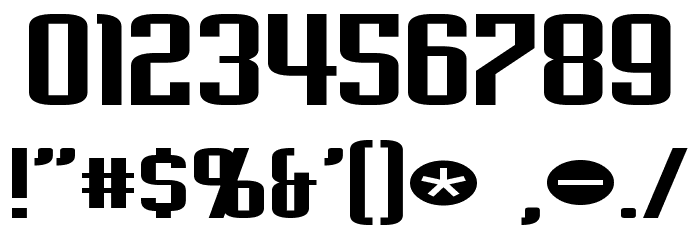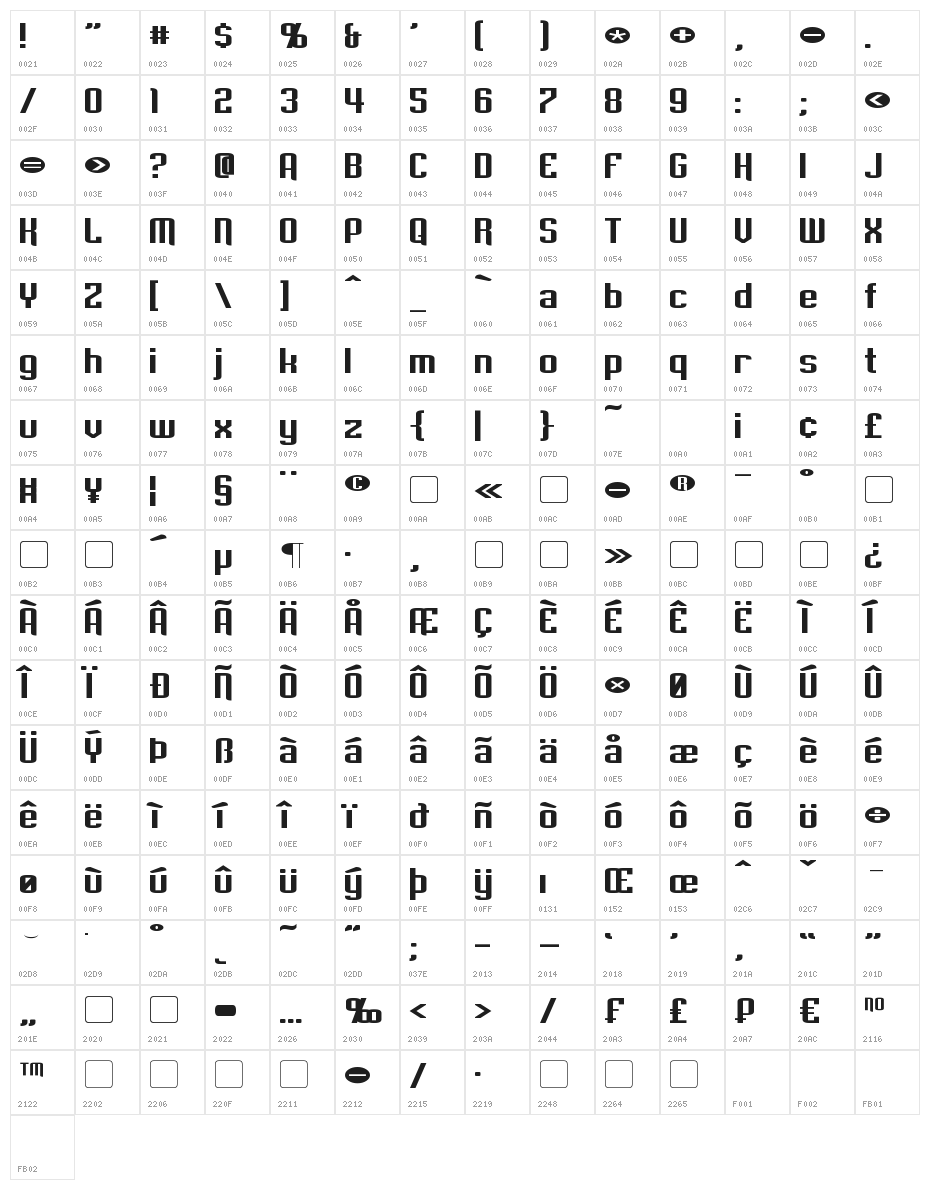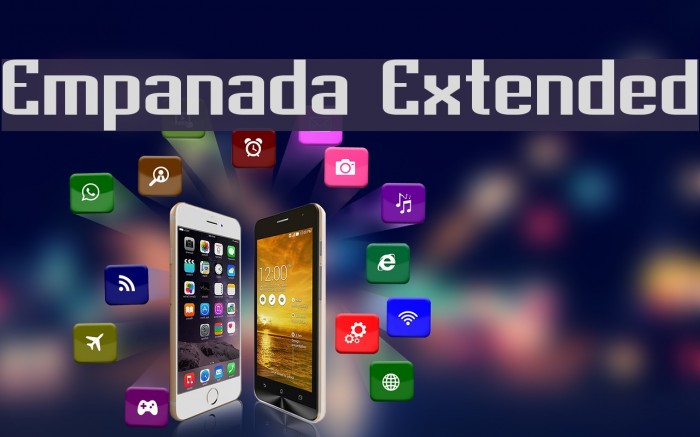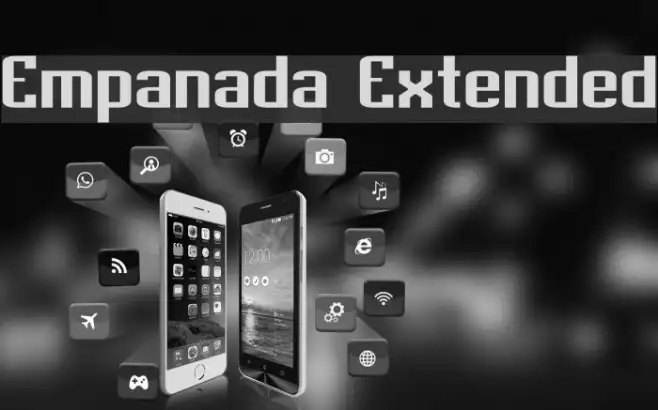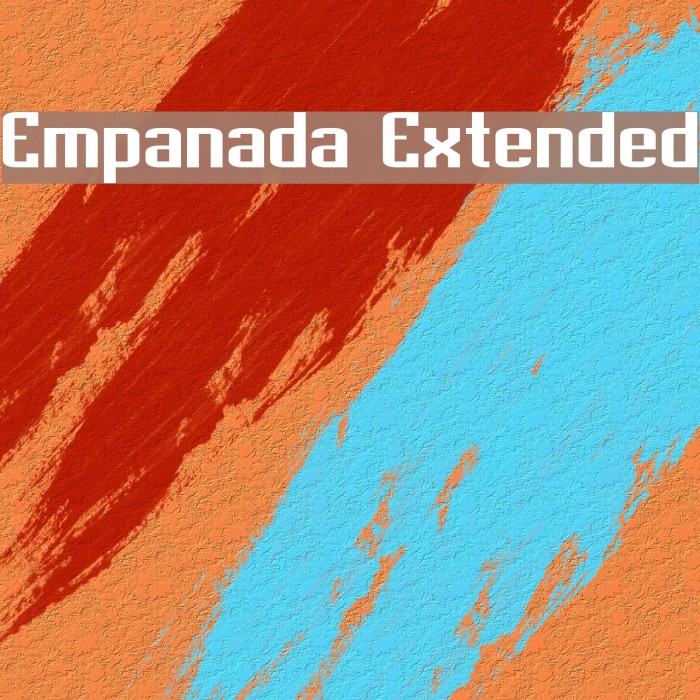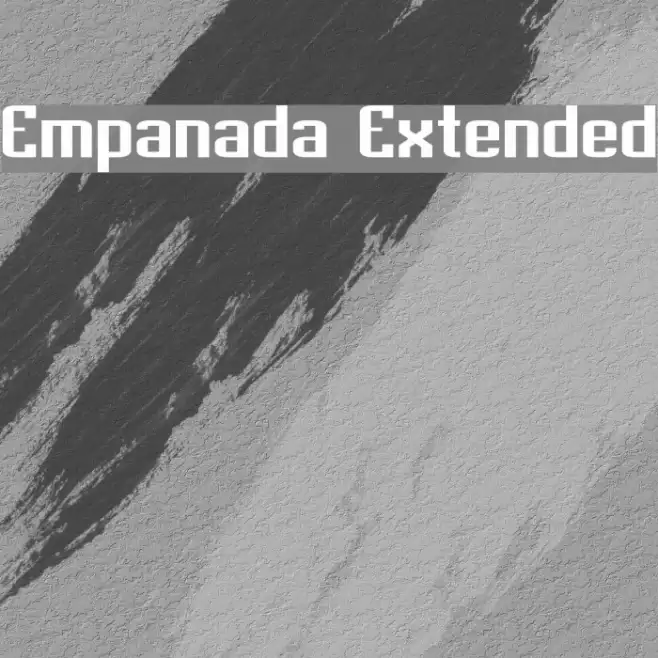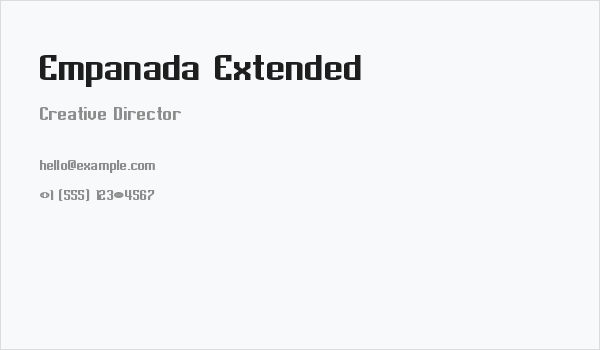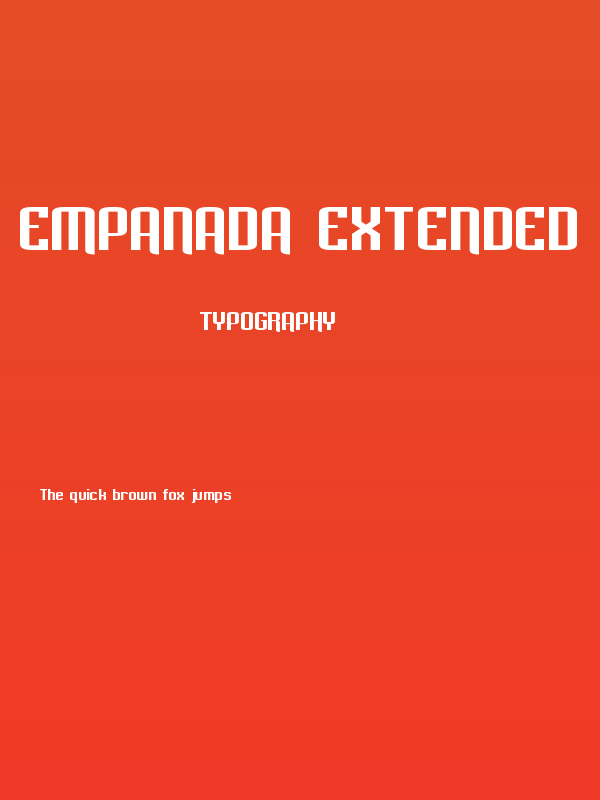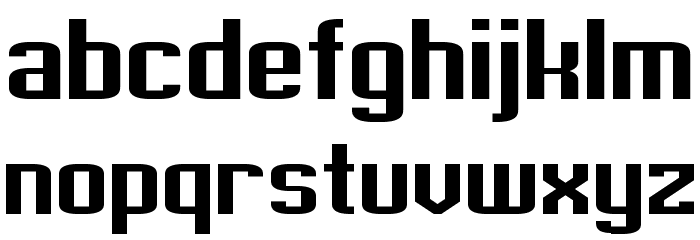
Empanada Extended Font
Empanada Extended Description
This font features a bold and extended style with a modern and geometric appearance. The characters are uniformly wide, giving it a strong and impactful presence. The uppercase letters are particularly striking, with a consistent height and width that create a cohesive look. The lowercase letters maintain the same boldness, ensuring readability while adding a touch of uniqueness. The numerals are clear and distinct, matching the overall style of the alphabet. Special characters are well-integrated, maintaining the font's bold and extended characteristics. This font is perfect for making a statement in any design project.